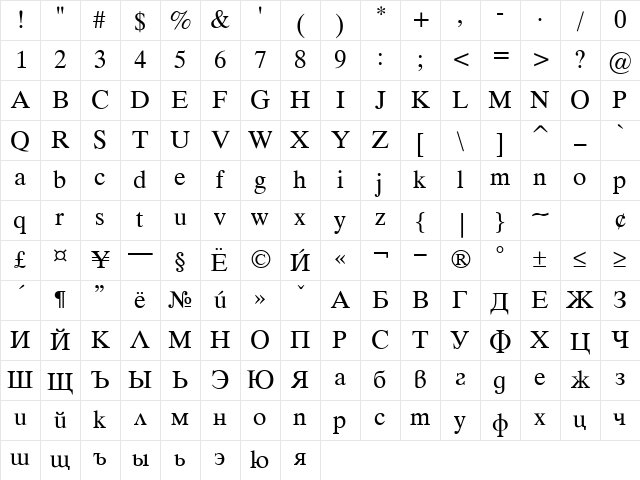
TimokB Plain Free Font
TimokB Plain
Design Context for TimokB
TimokB is a composed and adaptable typeface that performs quietly and consistently across a wide range of design contexts.
Pro Tip: Use TimokB in both headline and body roles to test its range before committing to a single application.